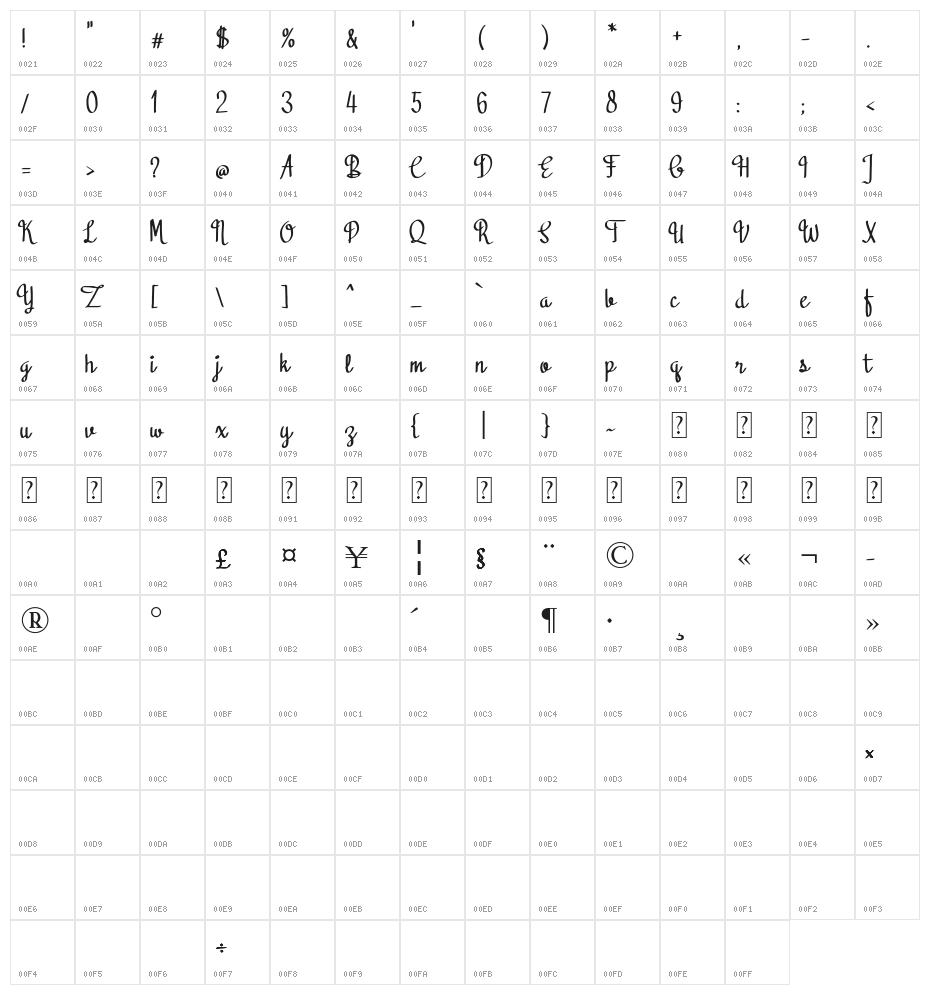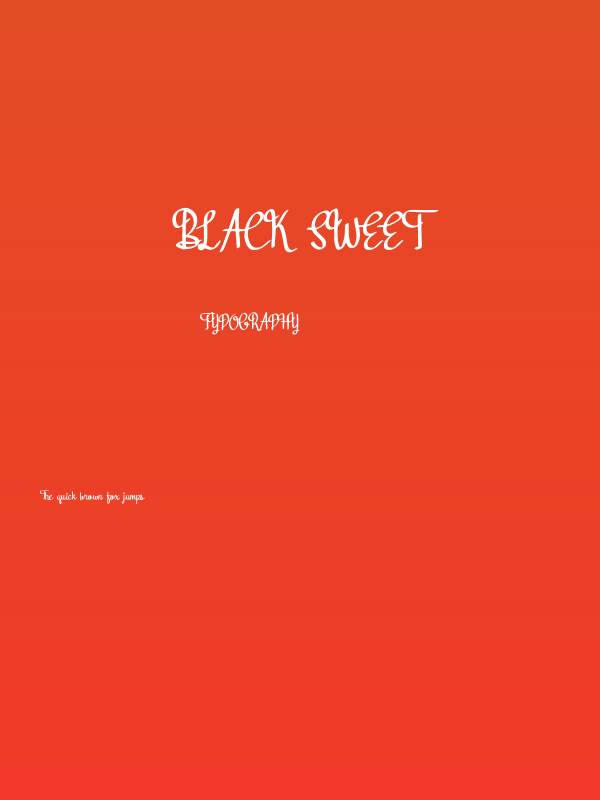
Black Sweet Font
Black Sweet Description
This font features a playful and elegant script style, characterized by its flowing and connected letterforms. The uppercase letters exhibit a graceful, slightly exaggerated flair, while the lowercase letters maintain a consistent, smooth flow. The numbers are clear and legible, complementing the overall aesthetic. Special characters are well-integrated, maintaining the font's cohesive style. The font's design is both decorative and functional, making it suitable for a variety of creative applications.
Use CaseLogos, Invitations, Decorative text
Proposed ProjectsIdeal for wedding invitations, greeting cards, branding projects, and decorative signage.